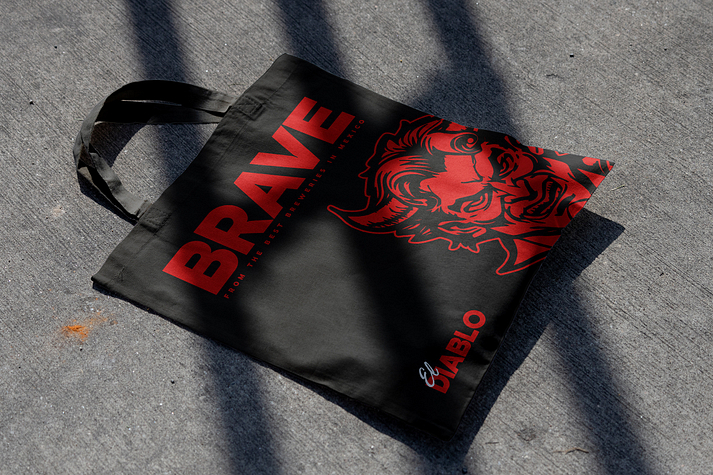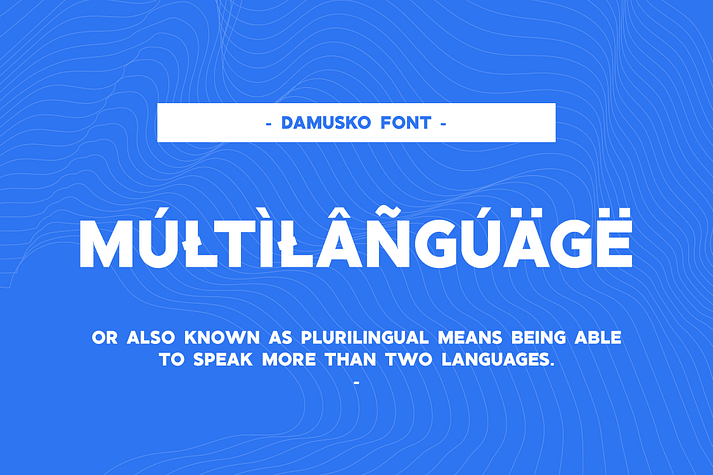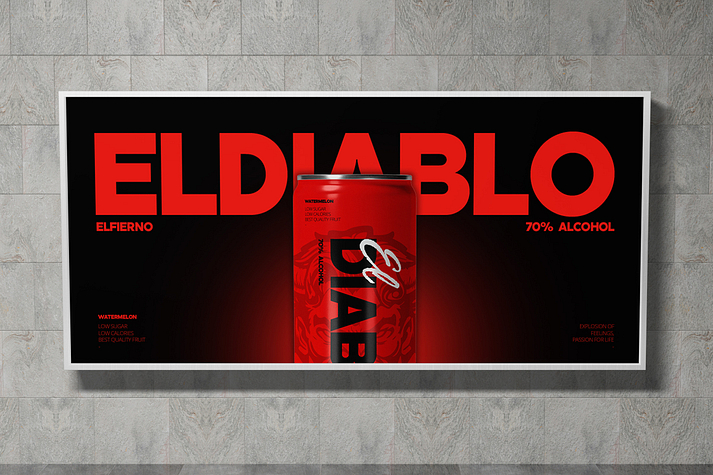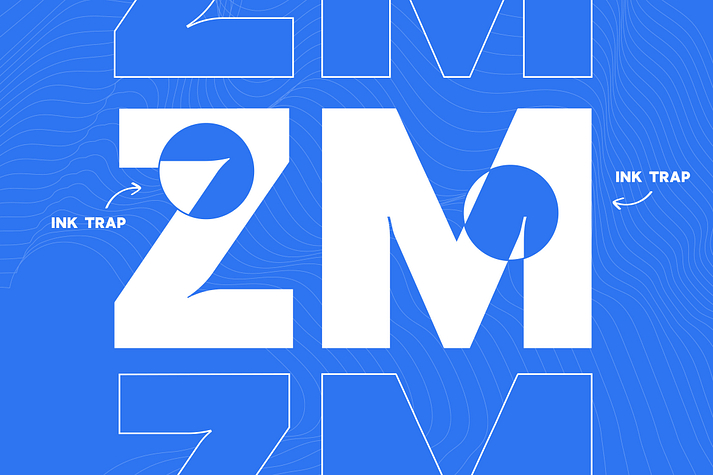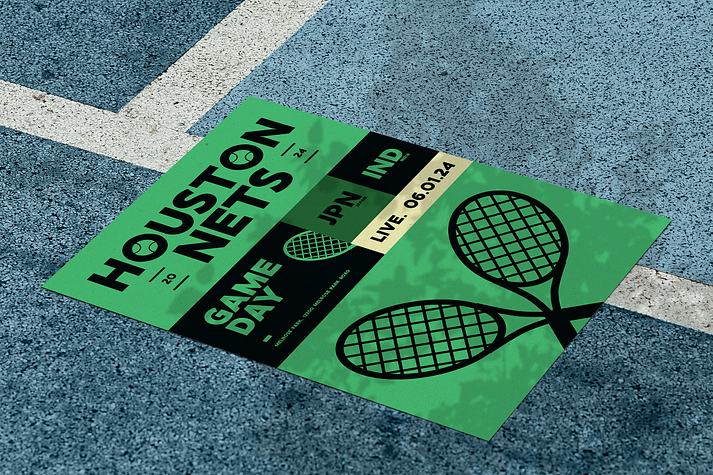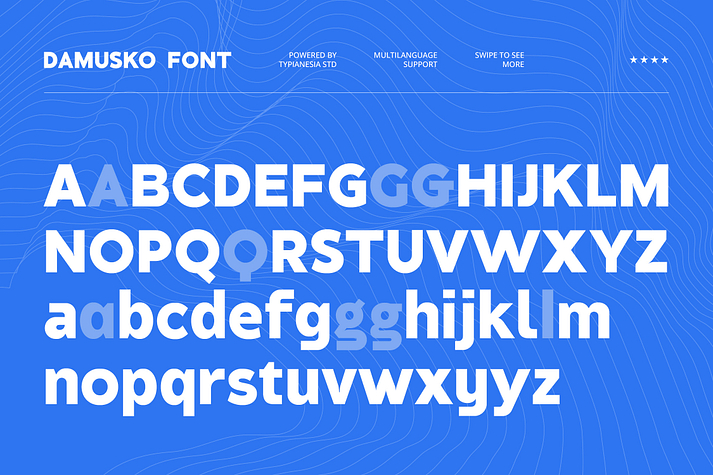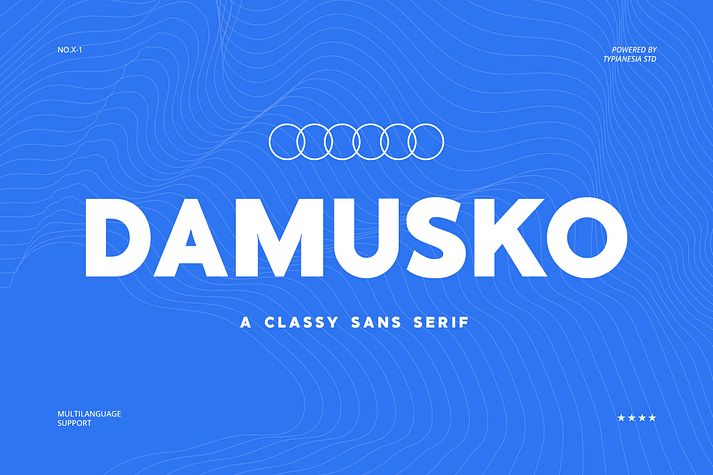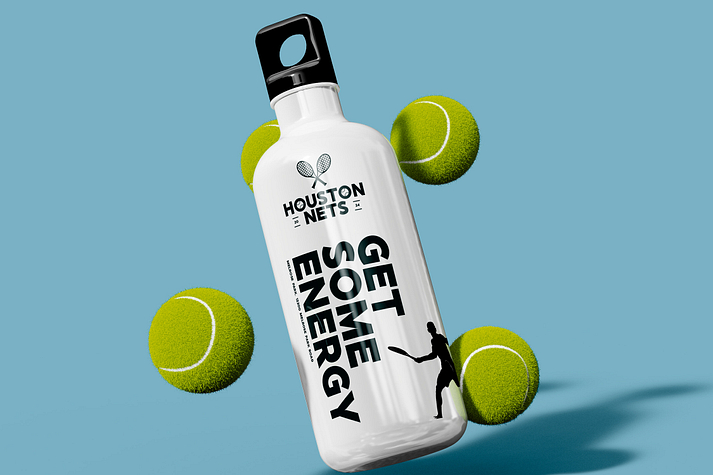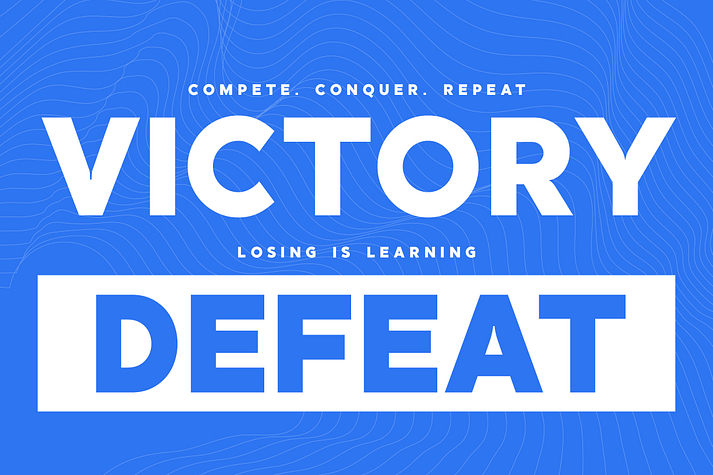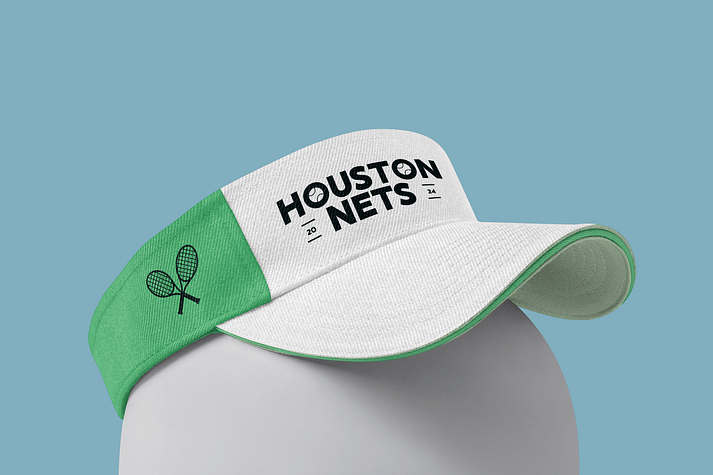
Damusko
Damusko is a sans serif font family published by Typia Nesia.
Damusko - Classy Sans Serif - Modern Bold Ink-trap Display Font
Damusko is a Classy Sans Serif font that combines bold and modernity. Its clean lines and refined structure provide a sophisticated yet contemporary feel, making it an excellent choice for projects that demand a stylish and strong look. Damusko is ideal for branding, corporate identities, editorial design, website design, product packaging, advertising, this font is effective in posters, flyers, and banners for promotional campaigns, ensuring the message stands out with bold typography. You can also apply this font for signage and display, announcements, and merchandise design. Damusko is rich in features, including ligatures for smooth and natural character combinations. It comes with a complete set of uppercase and lowercase letters, punctuation, numerals, and alternate characters. Additionally, it offers extensive multilingual support, making it a versatile choice for global use. Designed with precision and an acute awareness of modern typographic trends, Damusko blends form and function seamlessly. Its bold ink-trap design enhances readability while adding a unique visual element, making it an excellent choice for designers aiming to create impactful designs.